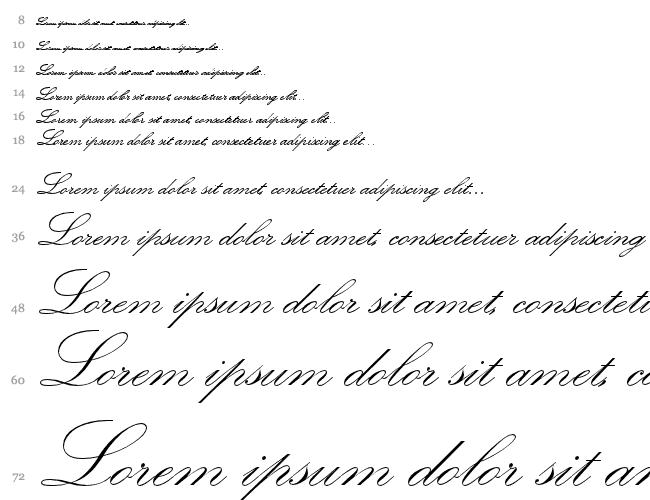
Kunstler Script Font
Kunstler Script Font - Web kuenstler script is a typeface that was designed by the german stempel foundry in 1902 and extended by hans bohn in 1957. Web download kunstler script font free! Web kunstler script character map. Kunstler script font available in ttf format for you to download.
Web Kuenstler Script Is A Typeface That Was Designed By The German Stempel Foundry In 1902 And Extended By Hans Bohn In 1957.